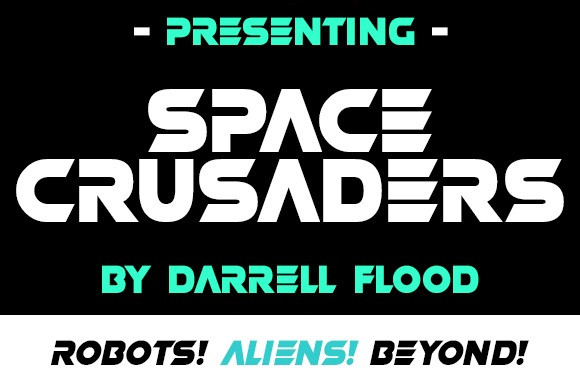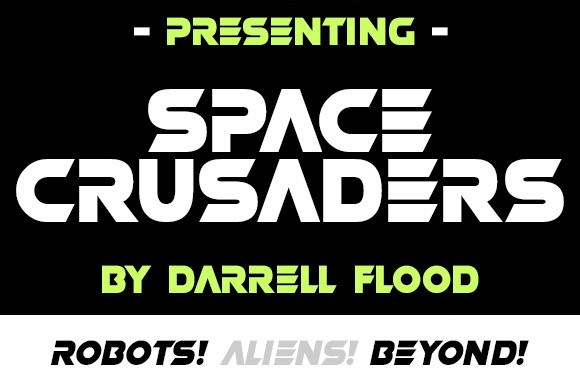
Space Crusaders Font
Space Crusaders Display Font,  It has a distinctive futuristic design. Use it to create time-traveling movie posters for futuristic or extraterrestrial productions. Fantastic for creating unique cards and artwork for science fiction fans.This font was created to be used for universal events like game competitions, wall advertisements, and poster designs. Your design can look better with a simple combination. Purchase it right away to enjoy using it ahead of the competition.